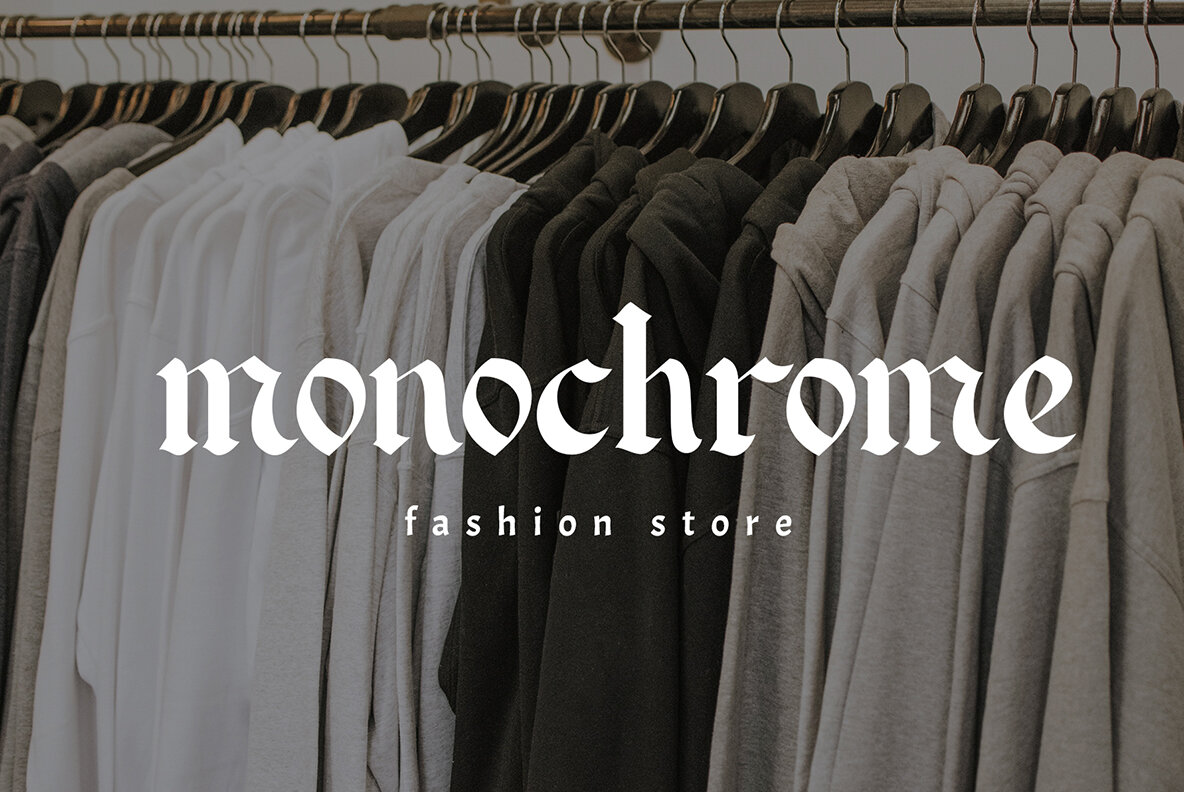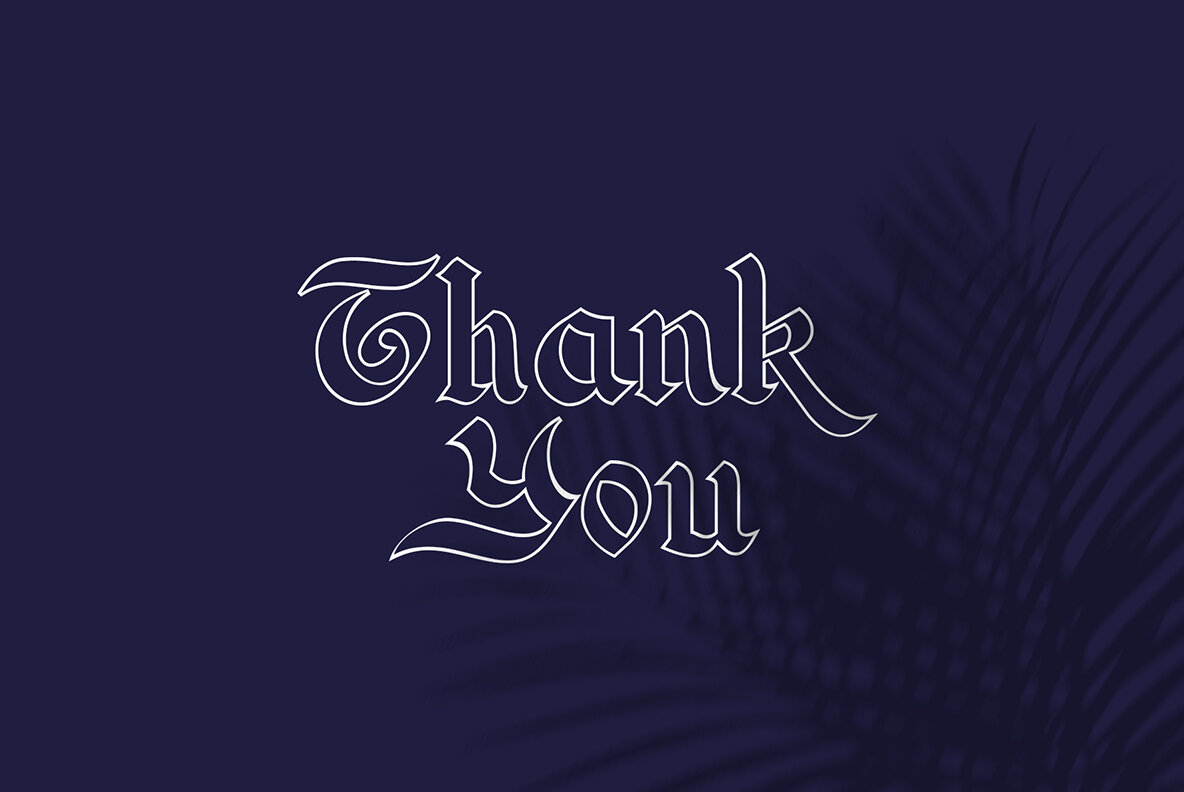
Alma Toran 1
Alma Toran is a typeface inspired by several typography books. Unique, elegant and vintage-style fonts suitable for design needs such as logos, posters, layouts, cards, etc. typeface consists of 2 font styles, namely plain and outline, there are alternative characters and multi languages in fonts.